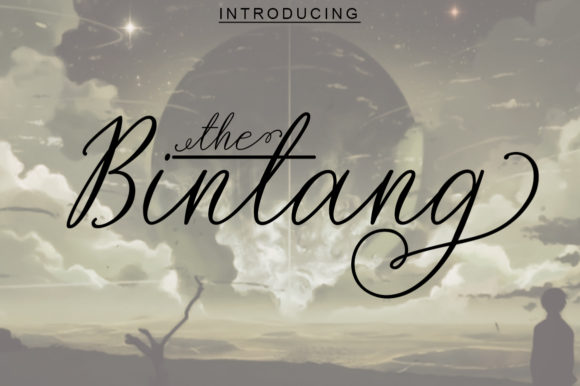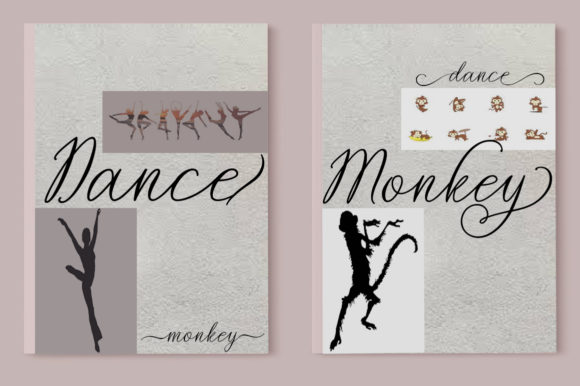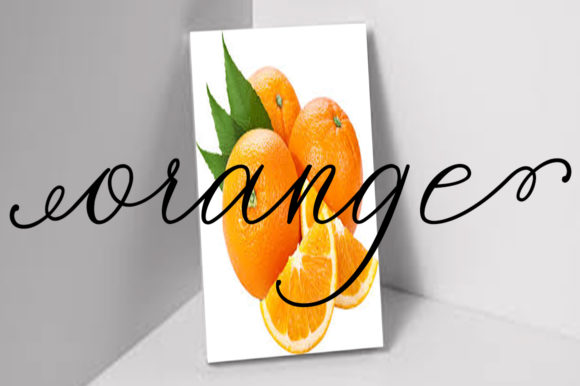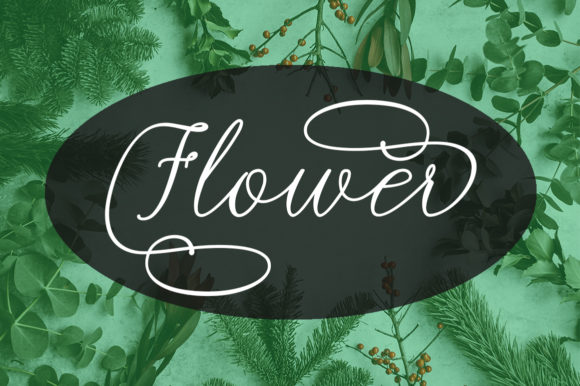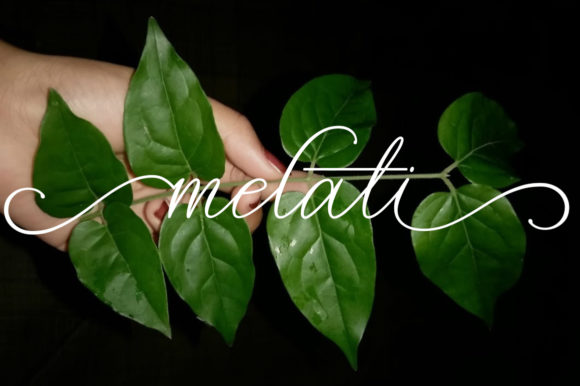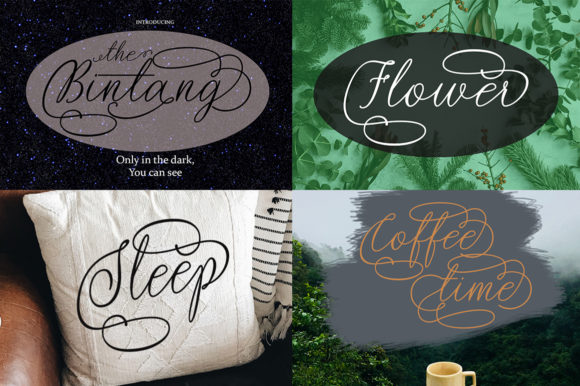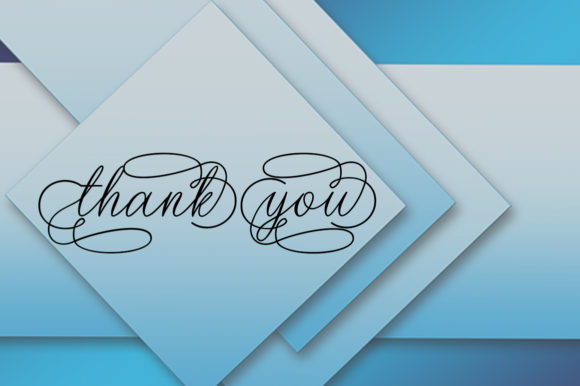
The Bintang Font
About The Bintang Font
The Bintang is a skinny and playful script that will take any design project to the next level. Fall in love with its romantic charm!